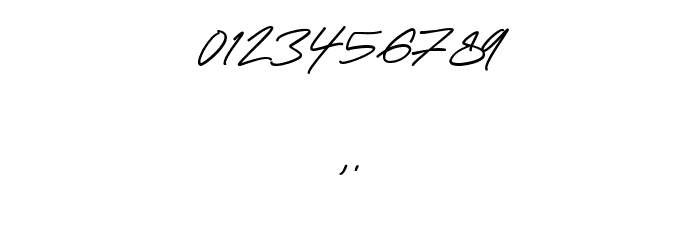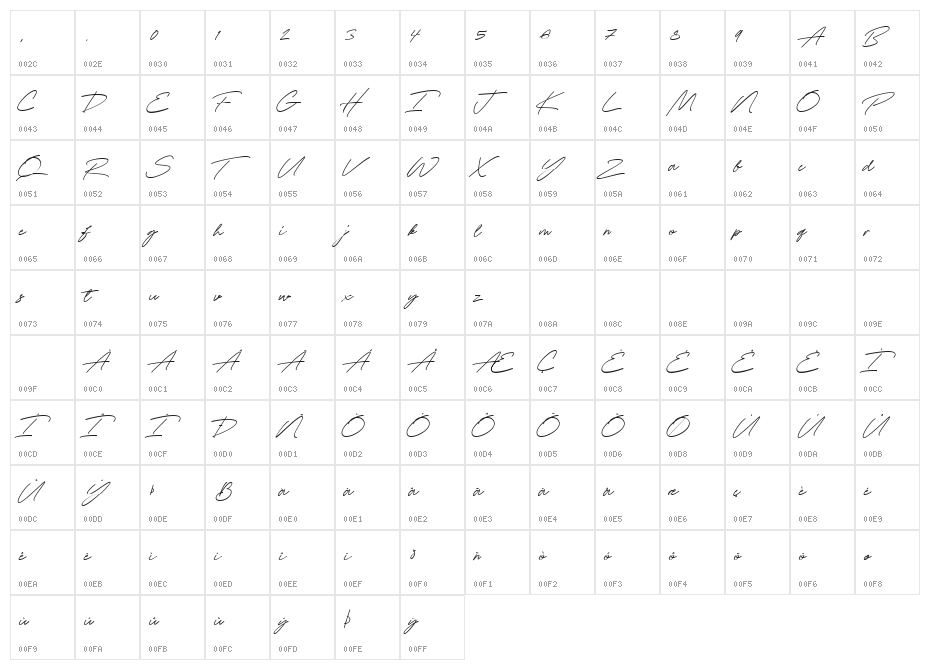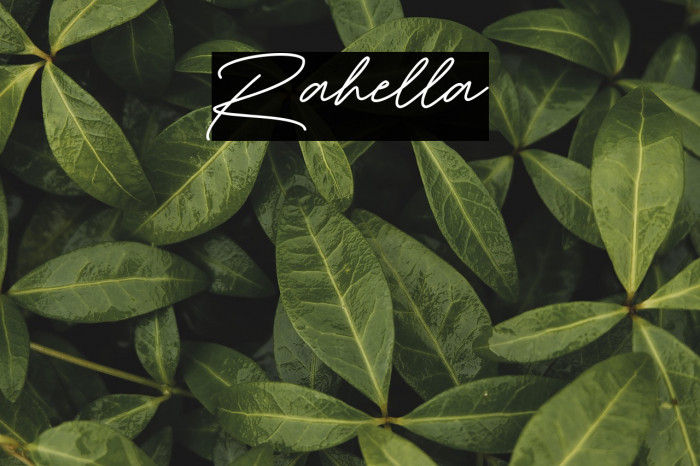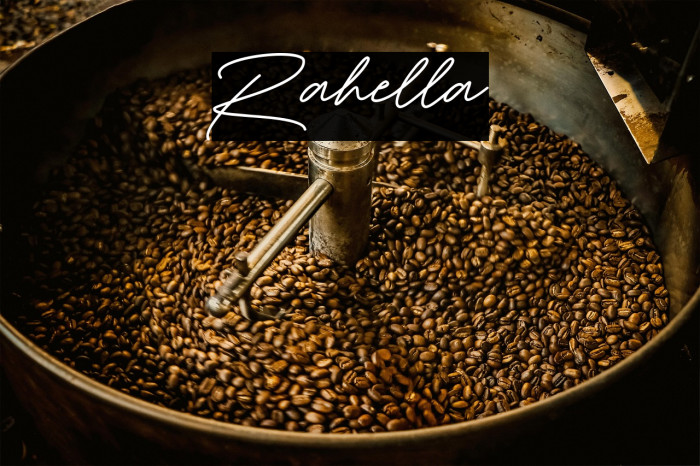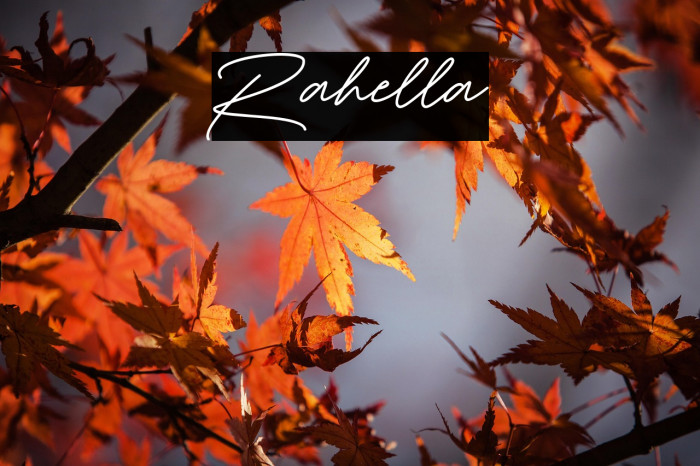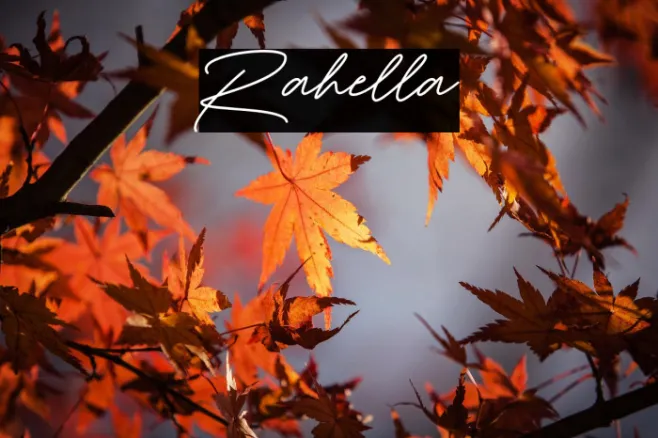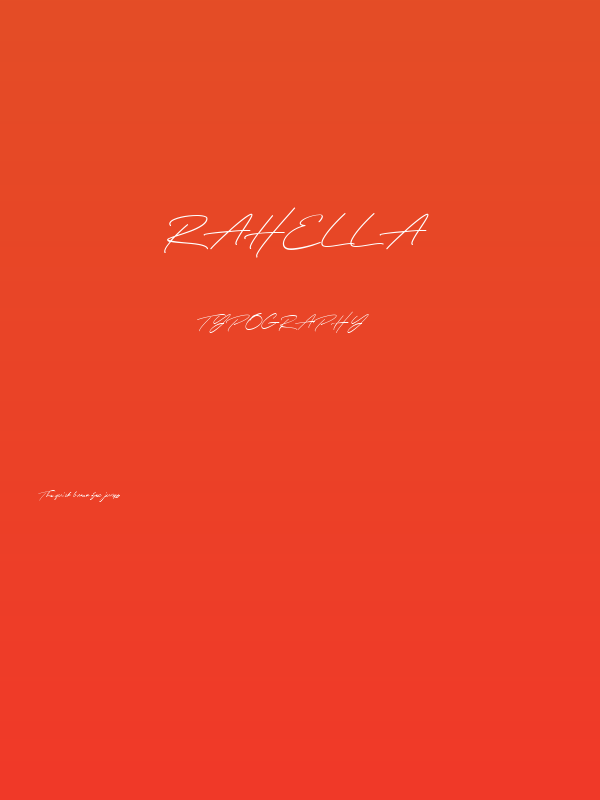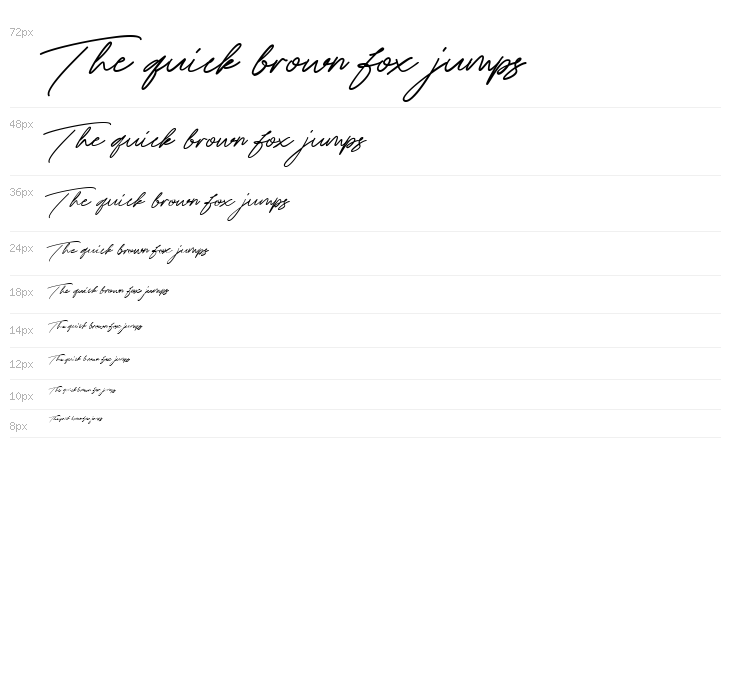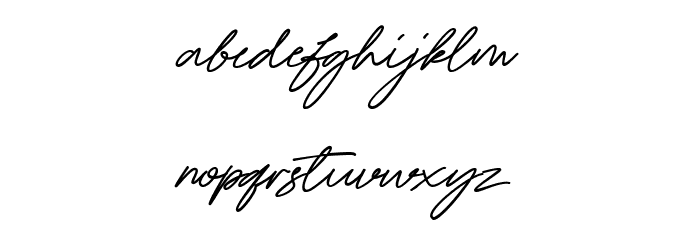
Rahella Font
Rahella Description
This font exudes a sophisticated and elegant style, characterized by its flowing, cursive script. The letters are interconnected, creating a seamless and continuous line that mimics natural handwriting. The uppercase letters are slightly larger and more pronounced, while the lowercase letters maintain a consistent flow. The numerals are designed to match the cursive style, maintaining the overall aesthetic. The special characters blend seamlessly with the rest of the font, ensuring a cohesive look. This font is ideal for projects that require a personal touch, such as invitations, greeting cards, or branding materials.
| Proposed Projects | Ideal for wedding invitations, personal branding, greeting cards, and elegant stationery. |